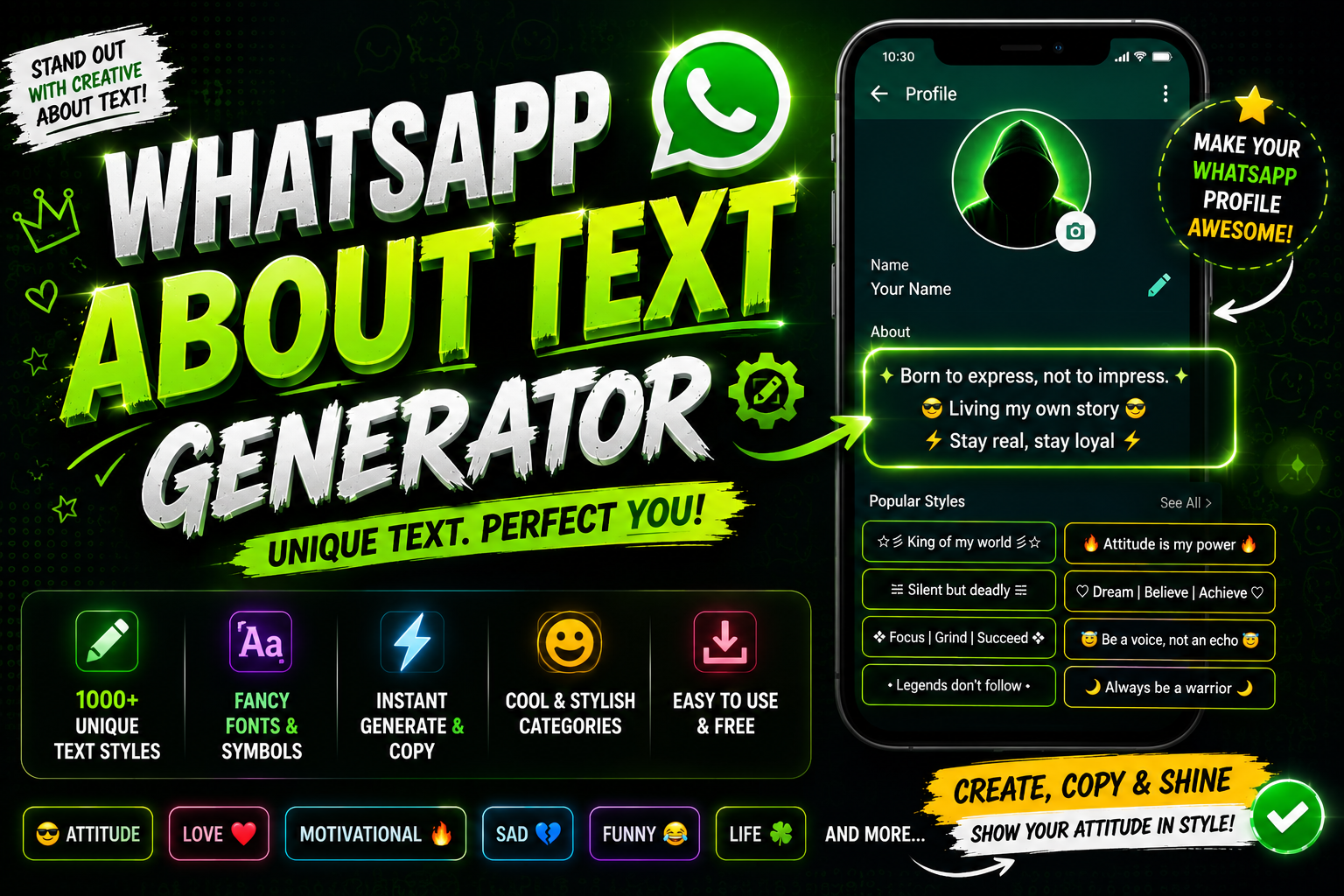
WhatsApp About Generator
Design a professional, formatted bio for your profile.
Digital expression subverts standard layout rules entirely. Using an online tool to convert raw communication alters perception instantly. Ordinary dispatches lack psychological resonance, but deploying Unicode characters injects immediate identity into static chat threads seamlessly.
My professional observation confirms that customized typography triggers superior engagement. Transforming normal text into textured visual variants allows distinct digital presence to stand out effortlessly. This subtle interaction captures immediate reader attention beautifully across networks.
What Is a WhatsApp Stylish Text / Font Generator?
Digital interaction shifts when an online tool leverages Unicode to convert plain, boring text into a variety of designs. My communication consulting experience proves how altering typography instantly redefines engagement across digital layouts completely now.
Observing modern chat psychology reveals that when users generate custom expressions, they manifest a distinct digital personality. Utilizing fancy fonts through rapid copy and paste maneuvers offers an immediate, impactful aesthetic upgrade for network dialogues.
How to Use the Stylish Text
Digital formatting often feels restrictive when customizing interfaces. My experience shows that entering a chosen type into the input box triggers an instant preview, revealing diverse font styles like cursive or bold text instantly generated.
Simply tap to copy the customized layout straight to your system clipboard. I regularly deploy this trick across social media networks and WhatsApp threads, outsmarting boring default formatting limitations without breaking complex visual interface aesthetics.
Step 1: Type Your Text
Beginning your digital expression requires entering raw phrases directly into the input field. This simple action shifts your ordinary thoughts into a dynamic canvas, preparing to transform standard communication into something deeply personal and engaging.
As an expert who designs custom digital interfaces, I watch characters manifest within seconds. Observing this effortless phase of typing reveals how quickly initial concepts prepare for the stylistic evolution that redefines traditional messaging platforms.
Step 2: Choose Your Style / Copy Fancy Text You Like
Digital identity choices finalized before typing reveal psychological ownership. In my experience, selecting captivating styles instantly anchors online user attention. We bypass traditional presentation formats, finding that aesthetic uniqueness dictates how a creative message resonates.
An interface interaction changes everything. Practitioners know a single click transforms raw expression, allowing users to copy paste tailored scripts directly. This strategic selection helps save time while maximizing visual impact across modern digital networks.
Step 3: Paste Fancy Text Anywhere
Deploying altered typography anywhere changes personal branding layout dynamics instantly. Pasting raw Unicode directly into WhatsApp Messaging or an Instagram profile bypasses default systems. Modern devices handle this global formatting quite seamlessly across various platforms.
Once copied onto your local clipboard, this aesthetic serves as an immediate upgrade for standard communications. Inject these stylized lines into daily messages or your next status update on Twitter and Facebook digital network interfaces.
Where to Use Stylish Text
Transforming interface expression requires bypassing default constraints. Through strategic deployment on both iPhone and Android devices, altering native formatting yields unexpected psychological authority, allowing creators to seamlessly impress modern followers with raw, minimalist typographical layouts.
Audits of active community groups reveal that an artistic layout elevates virtual interaction. I deliberately inject a fierce tone into ordinary marketing posts, transforming dry corporate bulletins into highly engaging visual exhibition display presentation environments.
Instagram Fonts
Curating a distinct aesthetic requires more than basic filters. I discovered that utilizing funky typography transforms boring profiles into charming digital statements. Creative text presentation modifies how audiences interact with your daily narrative feeds instantly.
My experience shows that custom variants break standard layout monotony. When users paste an updated bio format, engagement spikes. I prefer a rounded bubble outline over fluid cursive styles to maintain readability across Instagram networks.
Discord Fonts
Managing active gaming channels taught me that standard layouts fail. Within crowded online communities, using customized text alters user interaction safely. I utilize bold headers for rules, ensuring vital announcements never get lost amidst chat.
Transforming boring usernames requires deep structural platform awareness. Distinctive font styles establish authority, but experimental typography faces severe visibility issues on older websites, turning your carefully crafted profile into unreadable, chaotic rows of square blocks.
Can I Use These Fonts on Social Media (Facebook, Twitter, Instagram)?
Digital ecosystems accept these symbols dynamically. Years managing social media channels confirm that copying aesthetic glyphs works flawlessly. I inject customized text into organic tweets across Twitter and revamp promotional bio descriptions throughout mainstream Facebook.